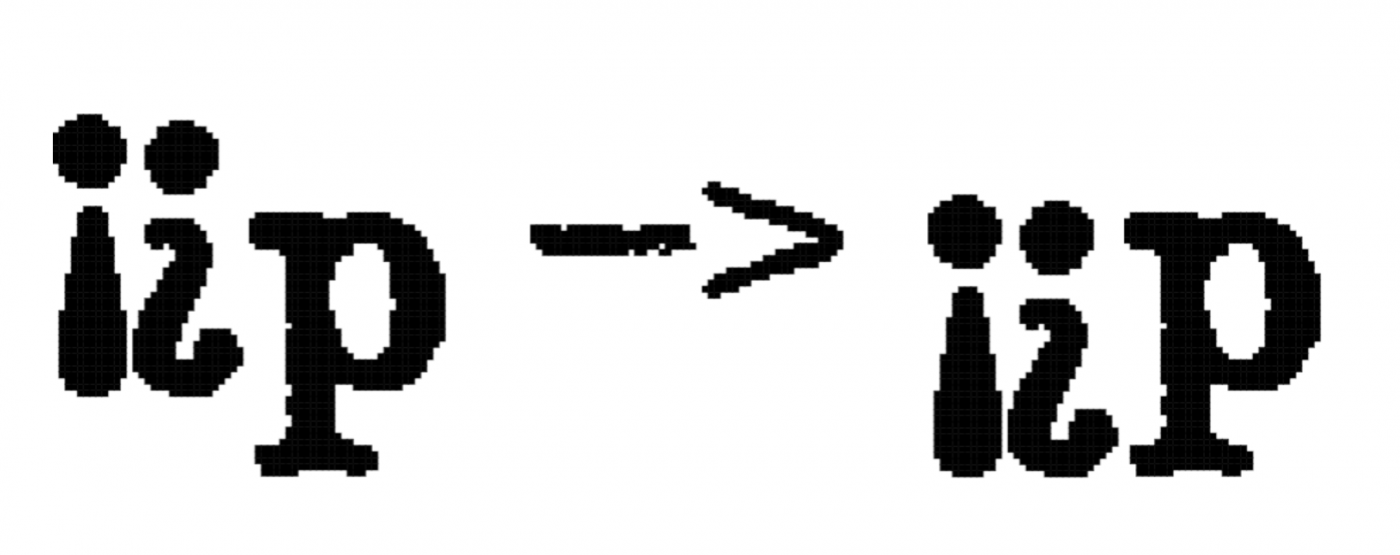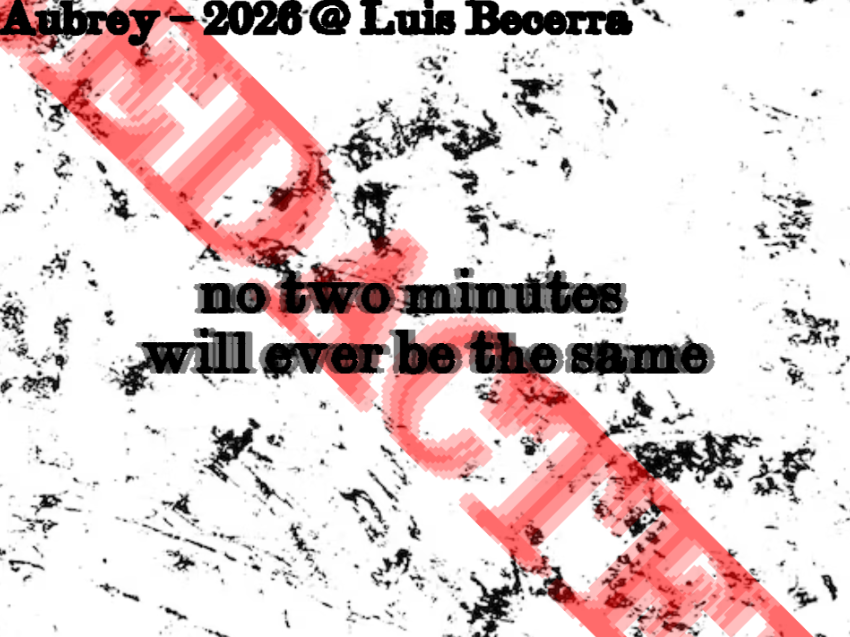
• What started out as a simple sidequest, to try and extend AidenFont's blot soon became a great collab between me and @lvqille, and after most of my fonts were deleted, I had to start from scratch. Dumped this into a new font file because the letter spacing becomes broken when I edit. Many of these glyphs were carried over from the original, but most were changed (Most of the caps, but mainly G, I, J, O, Q, U, 2, 3, 4, 5, 8 and & look so much better). That's because I used gensco instead of making stuff up. And, if you look closely, the accented letters vary slightly from one another :D
The deleted font came back. A big surprise!
A beautiful typewriter face, one with too much ink on the ribbon. Great extension of the original work. Gensco was a good choice to fill in the gaps. The spacing looks alright, a few letters (L, T, AV, ...) need kerning; nothing serious. I would make an alternate "a" with less ink. Congratulations. 10/10
The hyphen, dash, and minus sign are too high. The following glyphs (+ - < = > ~ × ÷ – ―) should be at about half x-height. Consider using them with lowercase letters.